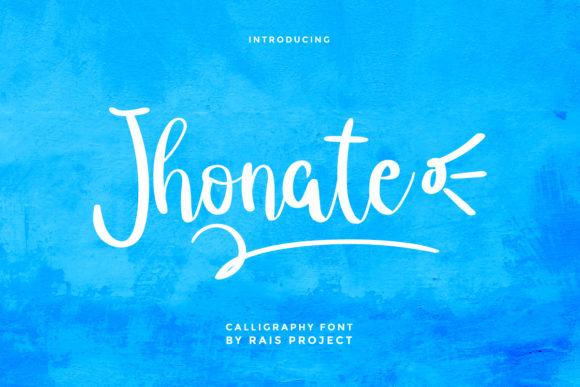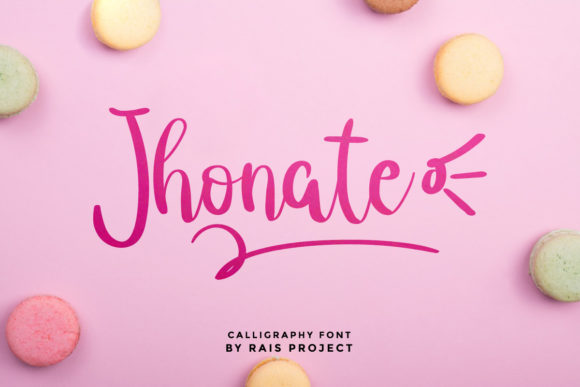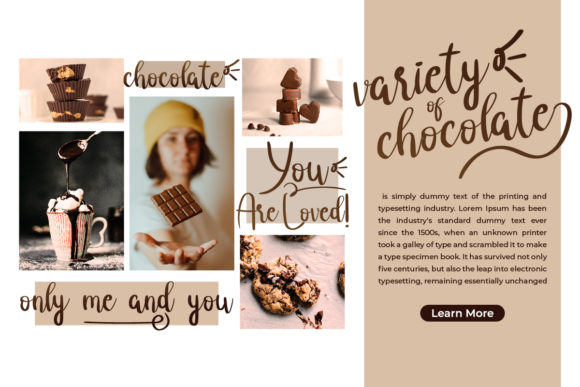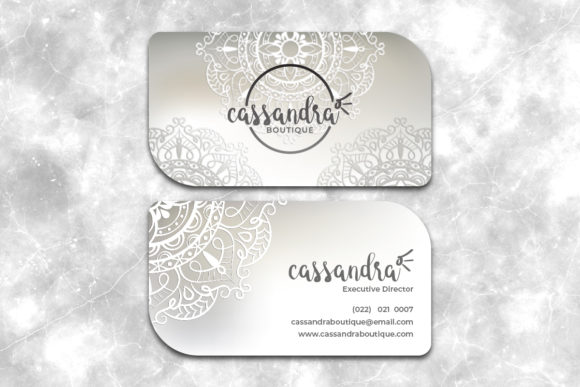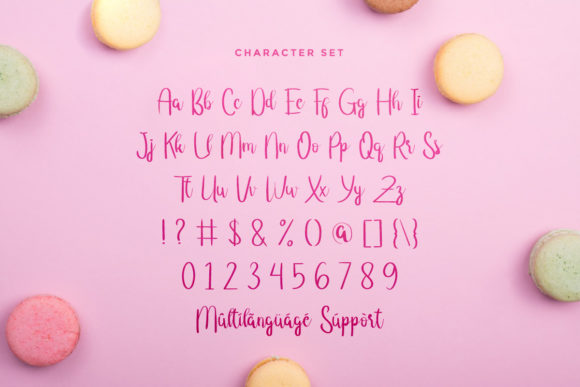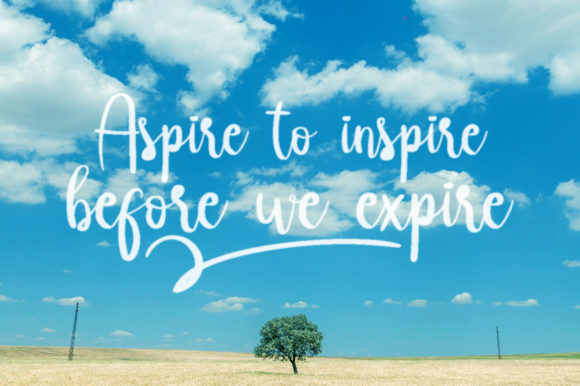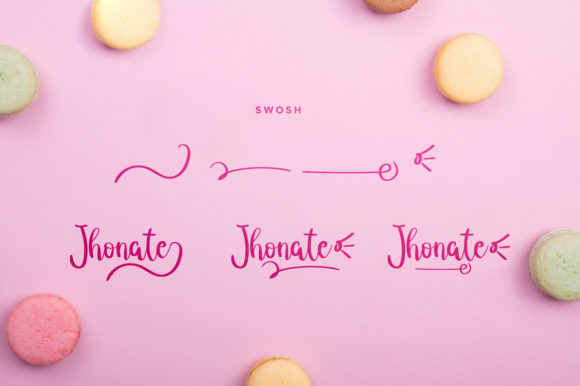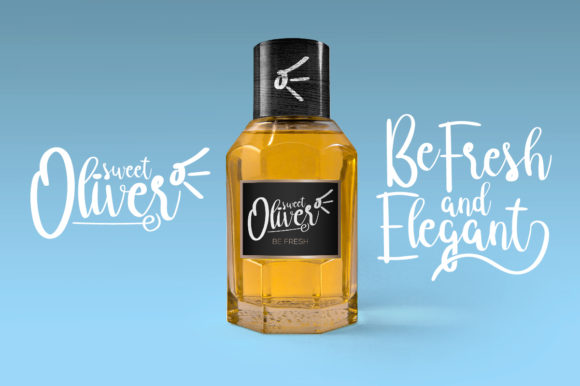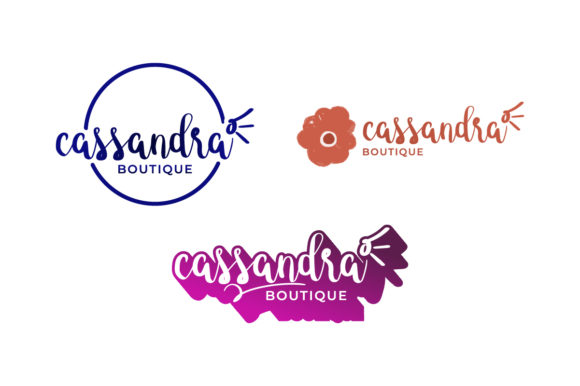
About Jhonate Font
Jhonate is a modern script font that is readable, friendly and stylish. It is defined by smooth curves and is perfect for fashion branding or editorial designs. Add it confidently to your projects, and you will love the results.